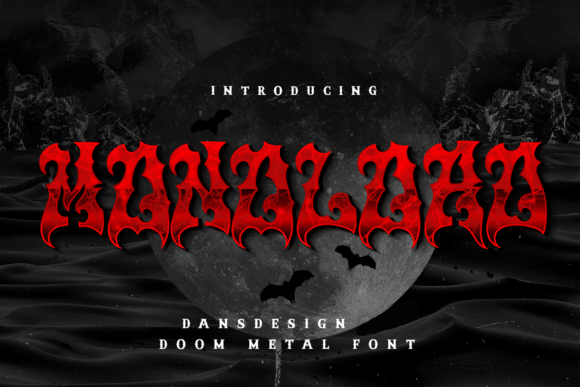
Immerse yourself in the world of Monolord, a blackletter font that captivates with its intricate details and bold presence. Inspired by the ancient art of calligraphy, this font evokes a sense of mystery and allure that is sure to leave a lasting impression. Imagine your designs adorned with Monolord's striking characters, whispering tales of adventure and intrigue.
With Monolord, you'll effortlessly create designs that exude an aura of strength and power. Picture your logo, etched in Monolord's bold strokes, commanding attention and leaving an indelible mark on your audience. Unleash your creativity and let Monolord's unique charm elevate your designs to new heights.
Step into a realm of limitless possibilities with Monolord, the ultimate choice for those seeking a font that speaks volumes. Whether you're a seasoned designer or just starting your creative journey, Monolord will ignite your imagination and empower you to craft designs that resonate with your audience.